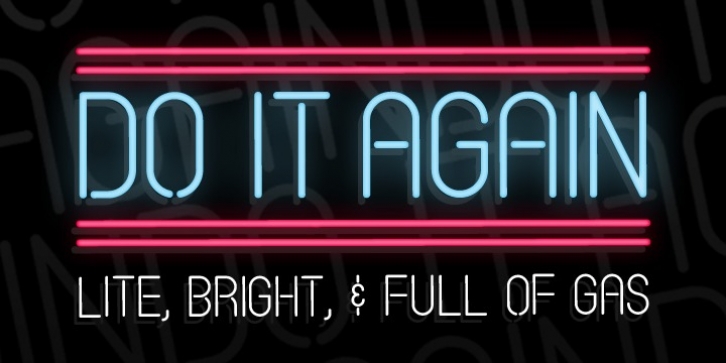
Do It Again was published by Thinkdust. Do It Again contains 1 style.
Do It Again is a new stencil based rounded sans serif with great language support, designed by Thomas Averin.